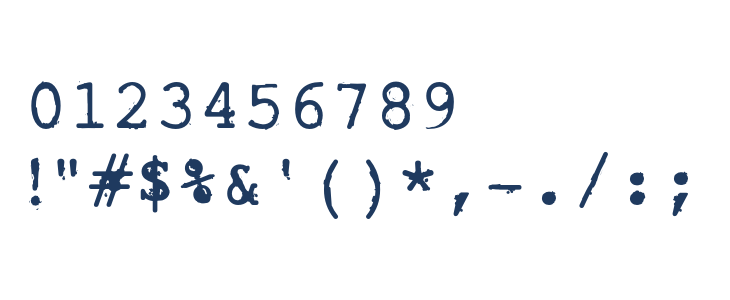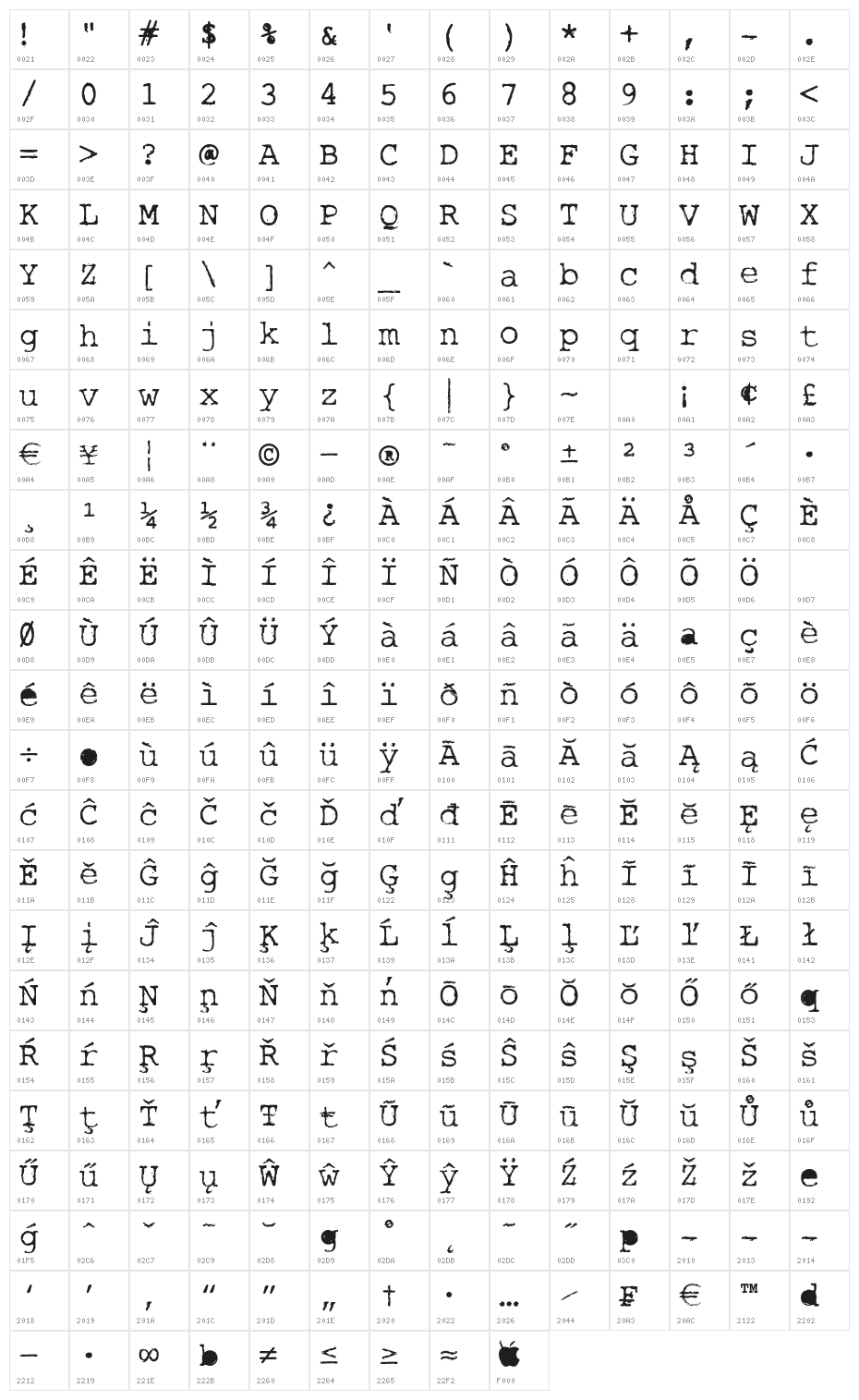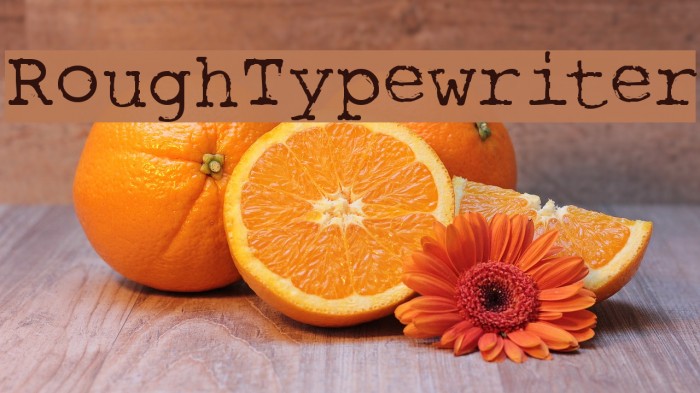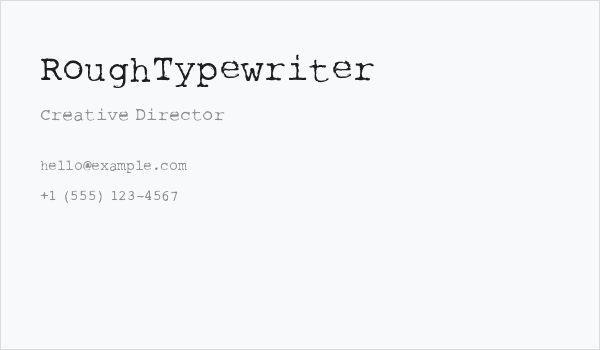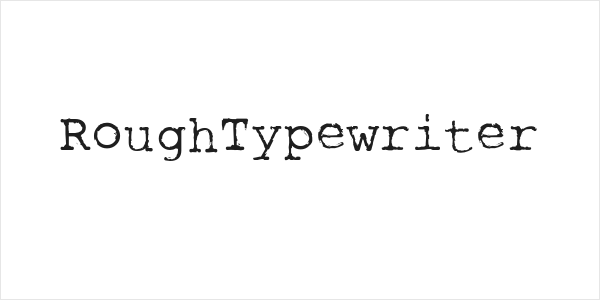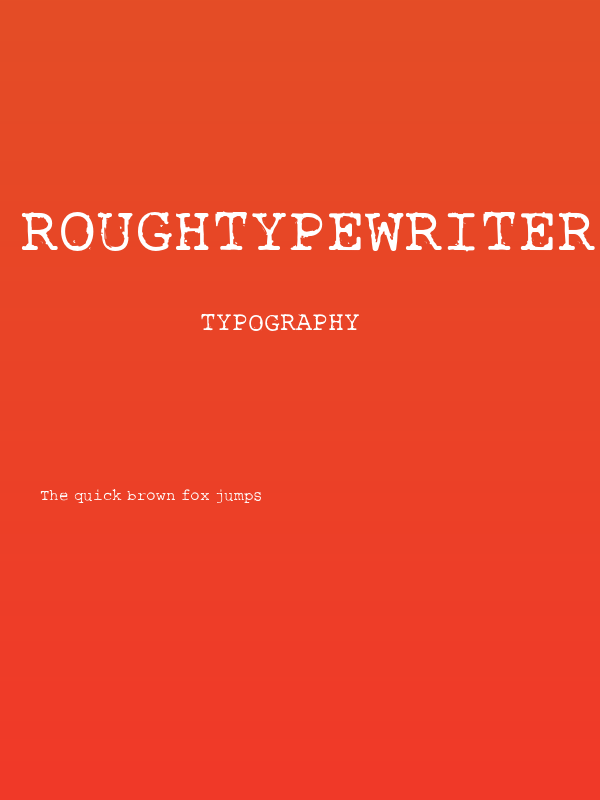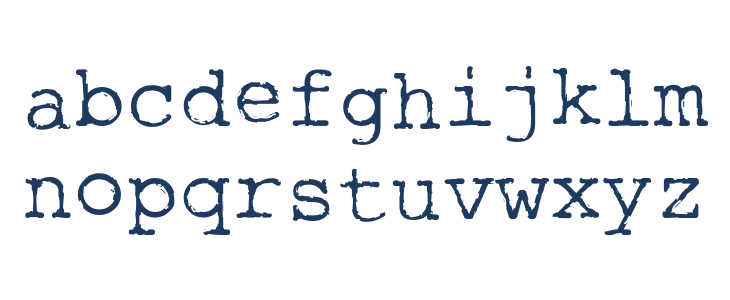
RoughTypewriter Font
RoughTypewriter Description
This typeface exudes a vintage, mechanical charm reminiscent of old typewriters. Each character is slightly distressed, giving it a rough, textured appearance that adds a layer of authenticity and nostalgia. The uppercase and lowercase letters maintain a consistent style, with rounded edges and uneven strokes that suggest wear and tear. Numbers and special characters follow the same aesthetic, ensuring a cohesive look across all text. This font captures the essence of a bygone era, perfect for projects that require a touch of retro flair.
| Proposed Projects | Ideal for retro-themed designs, vintage posters, typewriter-inspired projects, and creative branding. |